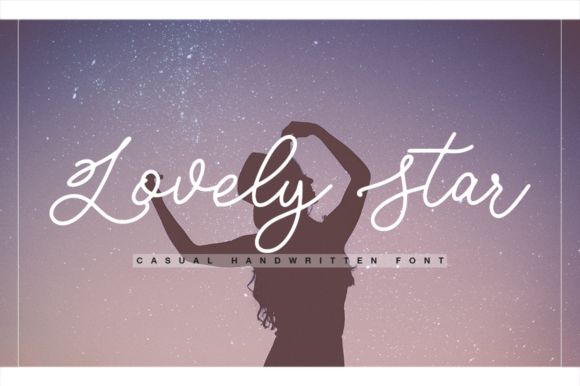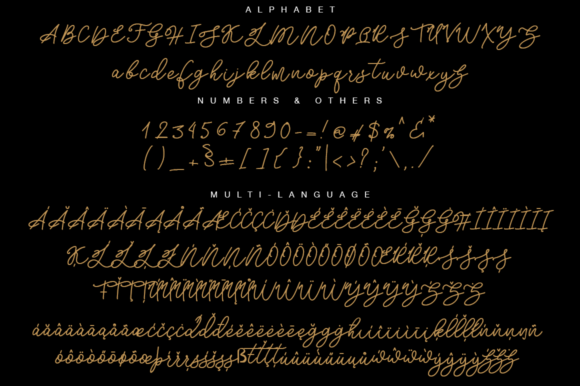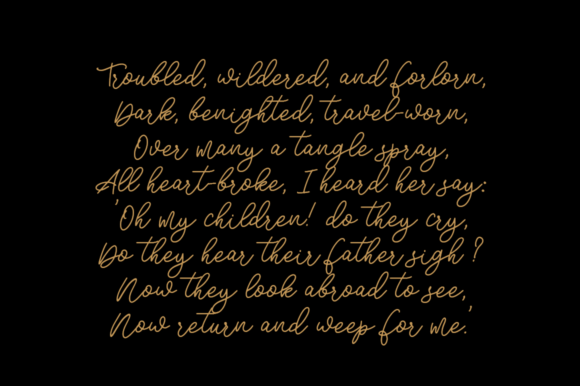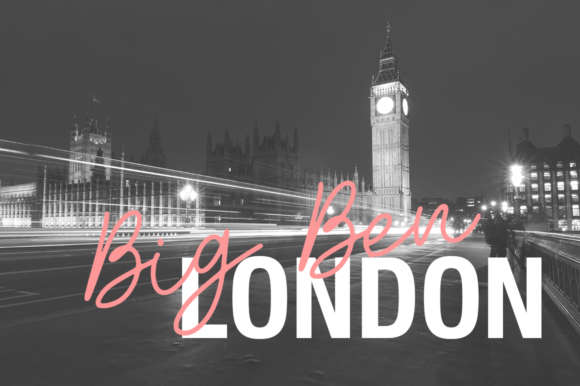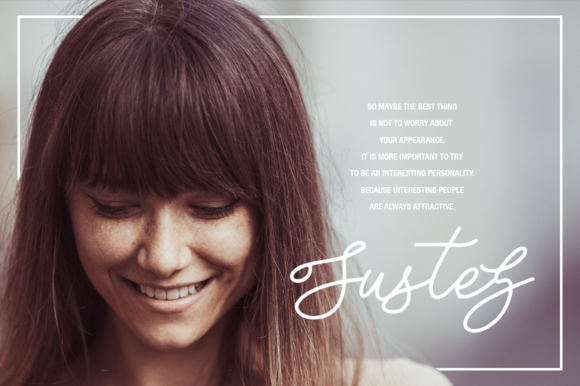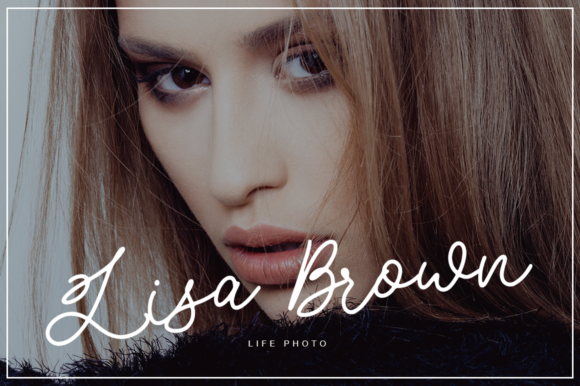
Lovely Star Font
About Lovely Star Font
The Lovely Star is a casual calligraphy typeface. It has thin letters which will give your designs an elegant feel.